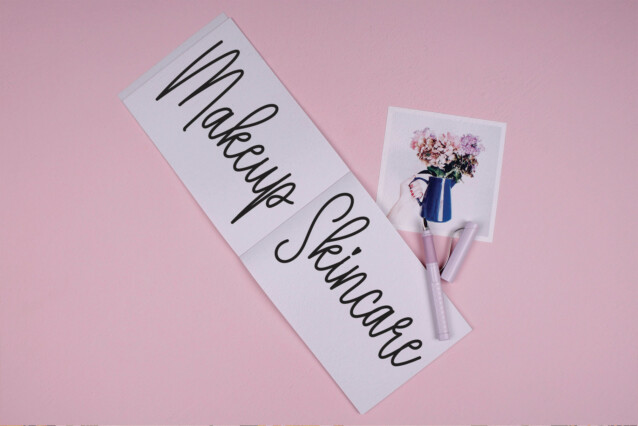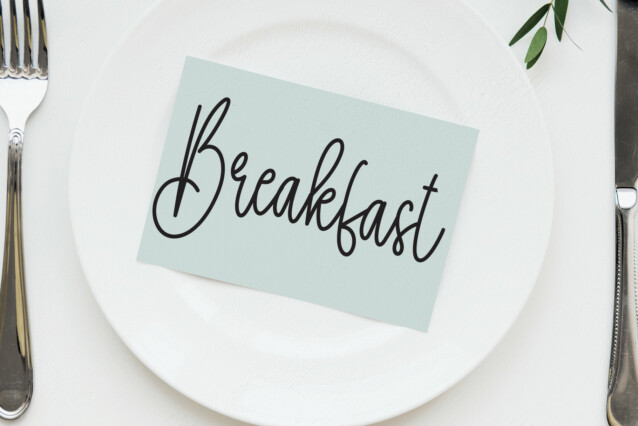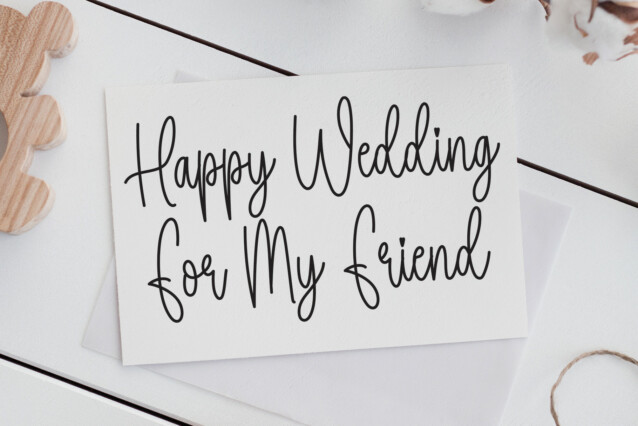
Sunflower Signature Typeface
Sunflower Signature Typeface is a lovely and chic script font. It is perfect for product packaging, branding project, magazine covers, social media, wedding, or just used to express words above the background.